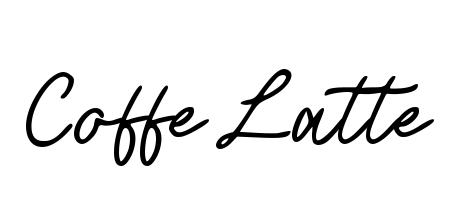
Coffe Latte
Coffe Latte, a cursive script font, whispers elegance and warmth. Its fluid strokes evoke the comforting ritual of a café. The lowercase letters dance playfully, while the uppercase ''C'' and ''L'' add a touch of sophistication. Perfect for menus, logos, or anything needing a touch of charming café style.